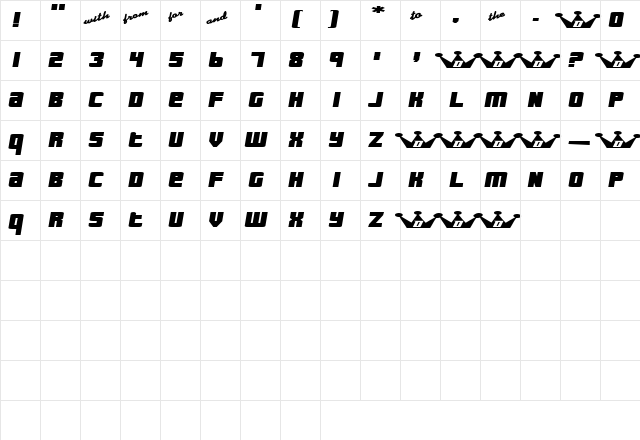
Complete BackToMono Regular glyph index. Displaying only characters natively supported by BackToMono Regular font.
BackToMono uses fixed-width spacing throughout, giving it the structured, systematic character associated with coding environments and technical documentation.
Pro Tip: Use BackToMono with slightly increased line-height for extended reading - fixed-width spacing can feel dense in longer passages without extra breathing room.